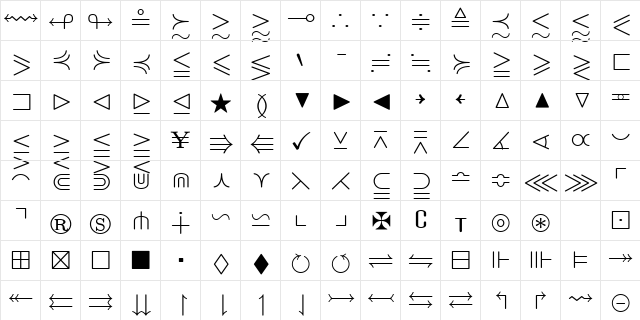
msam7 Regular Font Preview
msam7 Regular
Design Context for msam7 Typeface
msam7 is a composed and adaptable typeface that performs quietly and consistently across a wide range of design contexts.
Pro Tip: Pair msam7 with a font of contrasting weight or personality to build a more expressive typographic hierarchy.